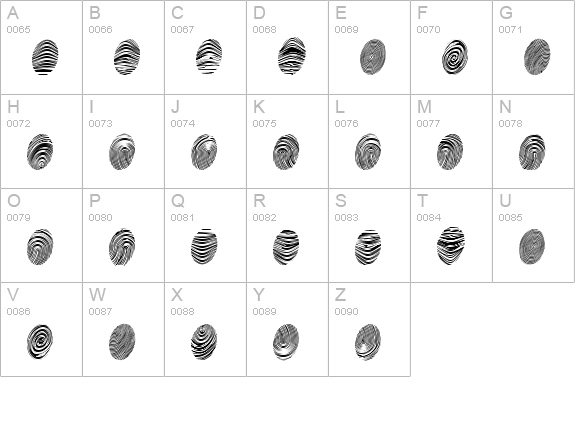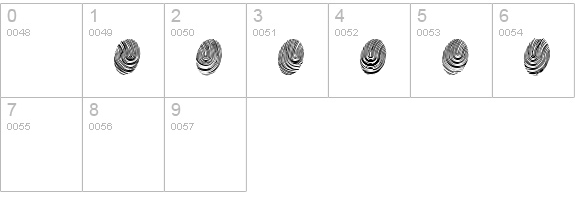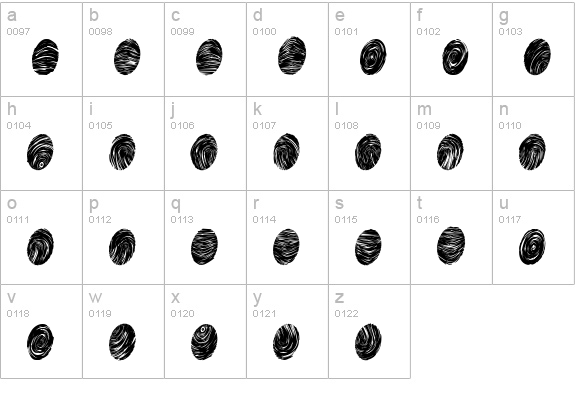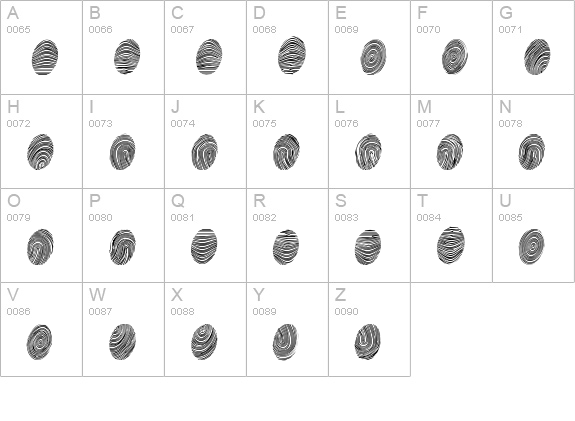
Powderfinger Pad font is a unique and artistic typeface that exudes a sense of creativity and modernity. With its sleek and smooth lines, this font is perfect for a wide range of design projects, from branding to advertising to social media graphics. The stylish and contemporary look of Powderfinger Pad font makes it stand out from the crowd and adds a touch of sophistication to any text. What's even better is that Powderfinger Pad font is available for free download at FontsMarket.com. This means you can easily access this beautiful font and use it in your projects without any cost. Whether you're a designer looking to add a fresh and exciting element to your work, or a business owner wanting to enhance your brand identity, Powderfinger Pad font is the perfect choice. Download it today and let your creativity shine with this stunning typeface.